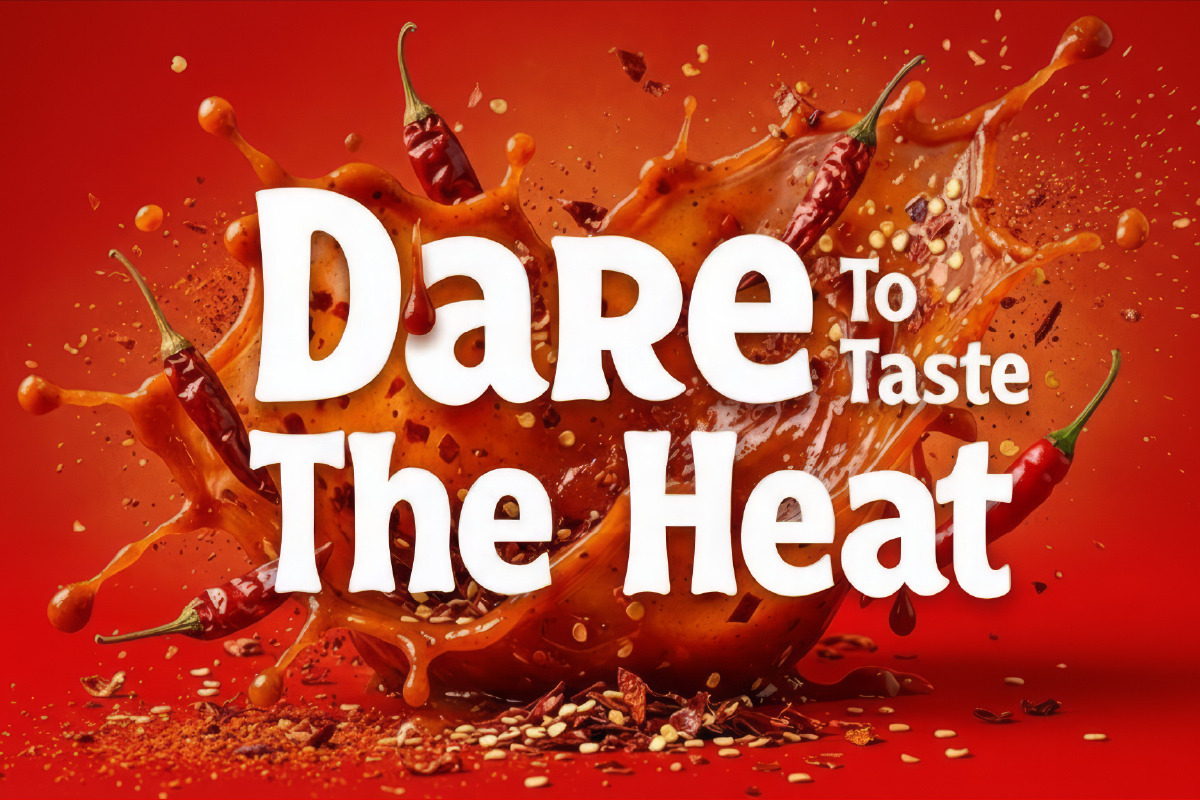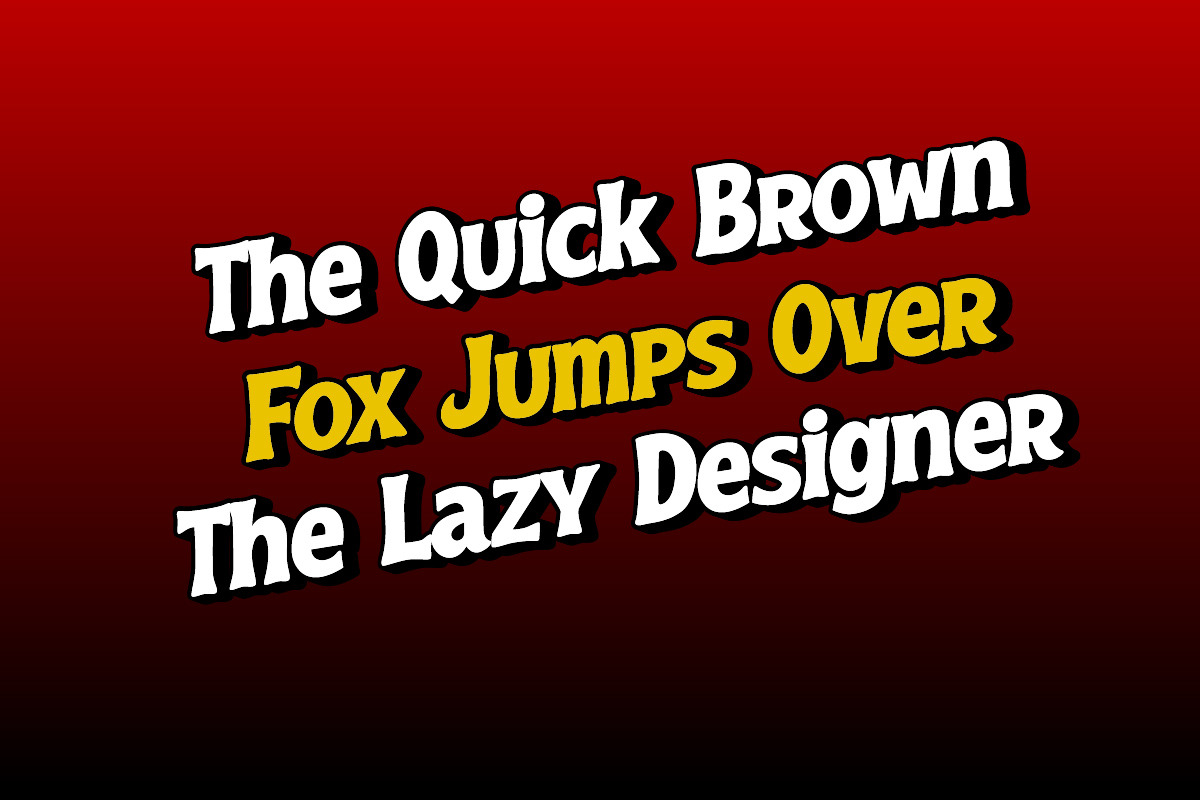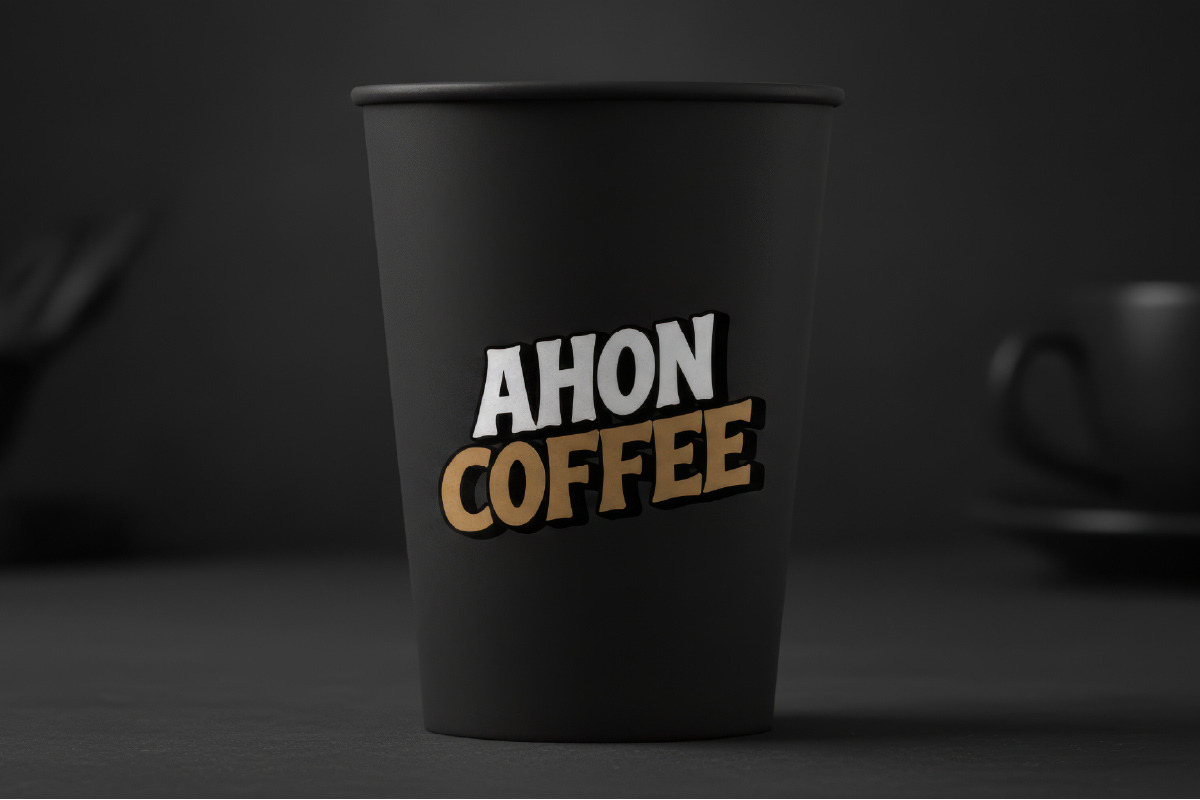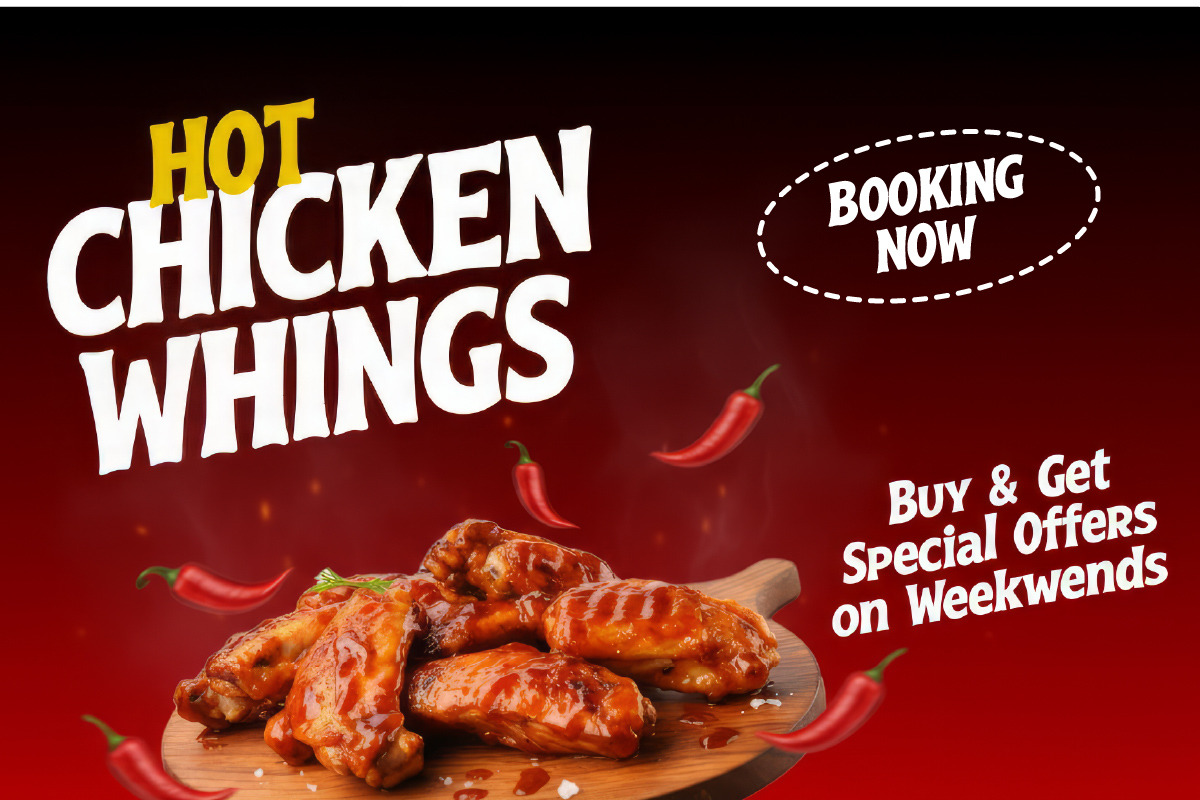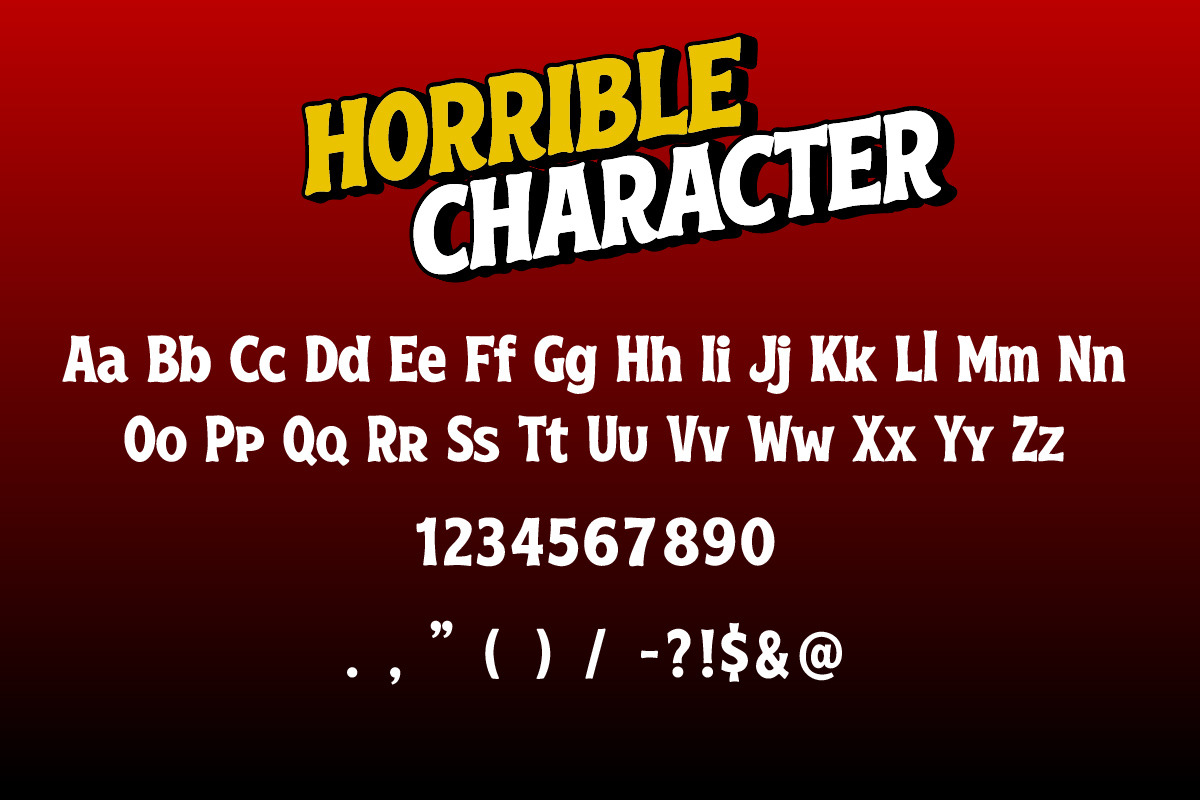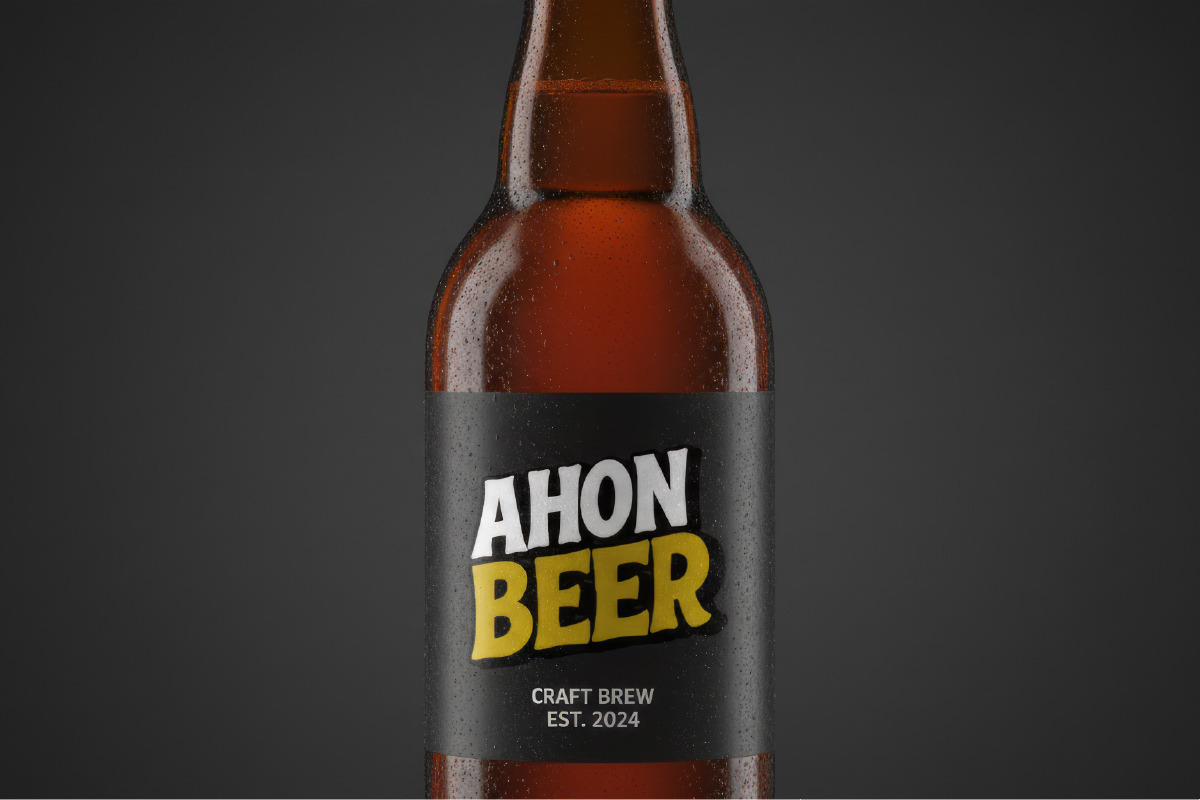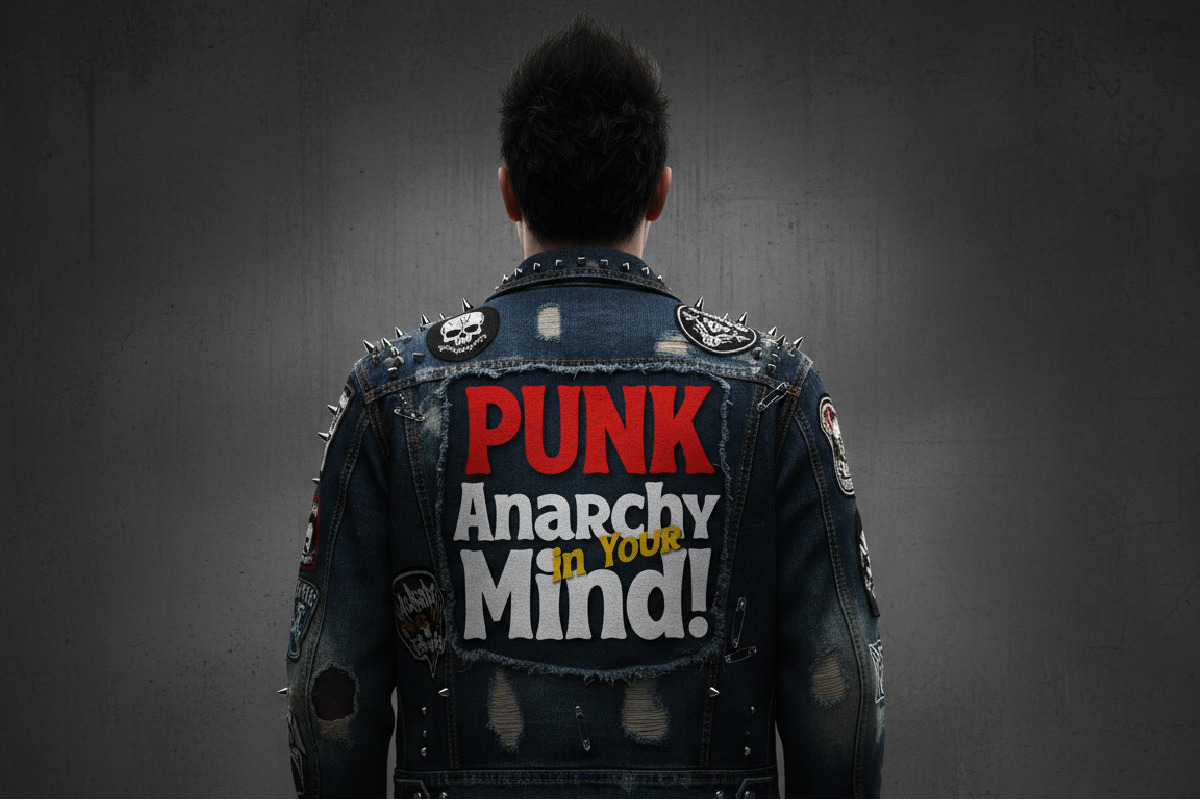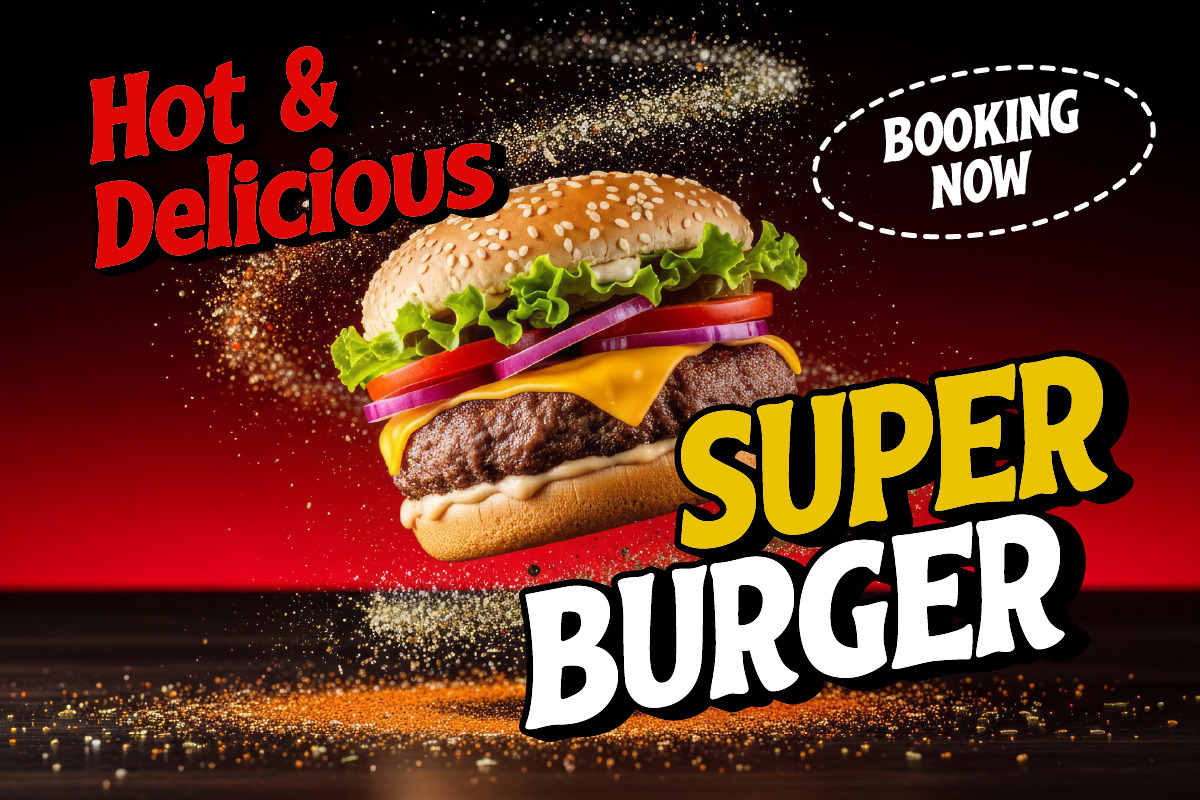
Horrible Modern Vintage Display
Horrible Modern Vintage Display Serif is a bold and expressive display serif font that blends vintage character with a modern edge. Featuring sharp serifs, strong contrast, and distinctive letterforms, it delivers a dramatic yet refined visual impact. Perfect for posters, branding, logos, album covers, and statement designs that aim to stand out with a retro-modern attitude.